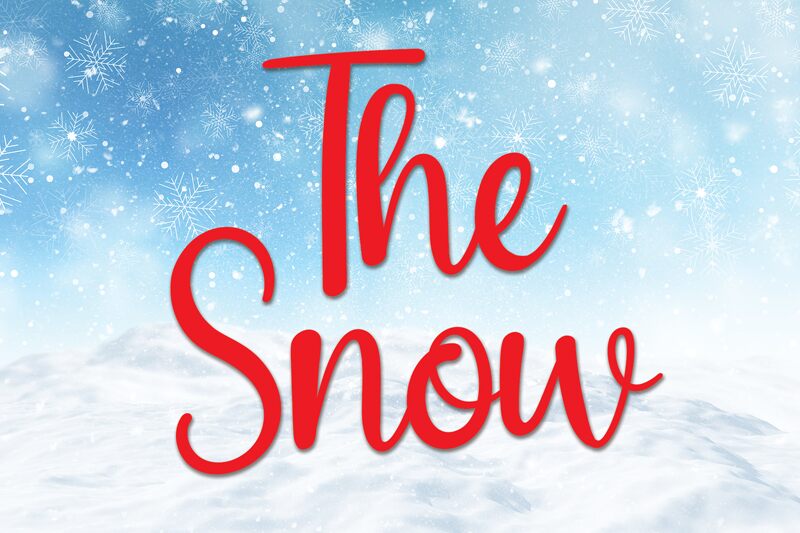
The Snow
The Snow is a captivating handwritten font that exudes a sense of whimsical elegance. Designed by Andi Moz, this typeface boasts delicate, flowing strokes that evoke the graceful dance of snowflakes. The brush-like quality of the letters lends a natural, organic feel, making The Snow an ideal choice for a variety of design applications, from wedding invitations to eco-friendly branding.
The font's versatility lies in its ability to convey both sophistication and a touch of playfulness. Its distinctive character shapes and subtle ligatures add depth and personality to any text, making it a standout option for headers, titles, and small-scale typographic treatments. Ultimately, The Snow's timeless charm and versatility make it a compelling selection for designers seeking to infuse their work with a touch of enchantment.